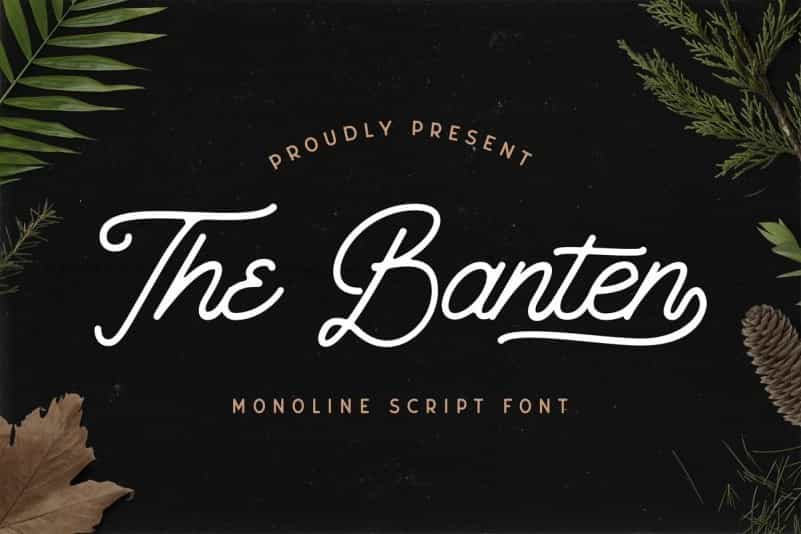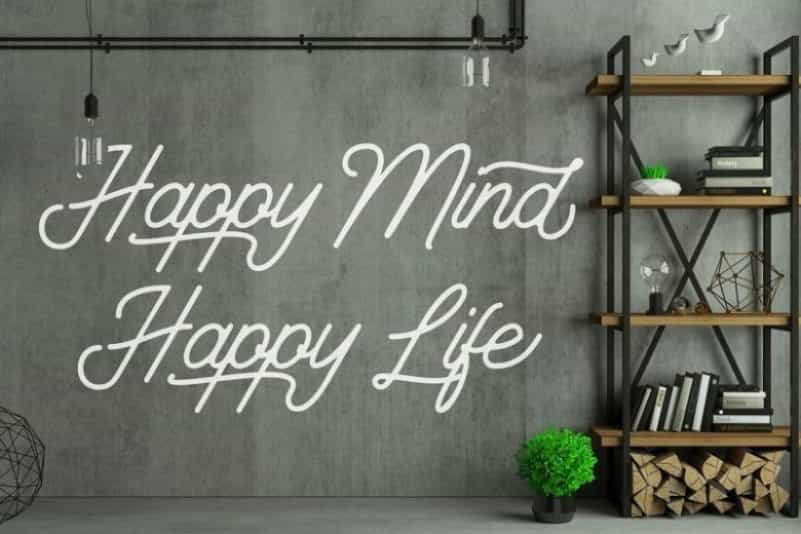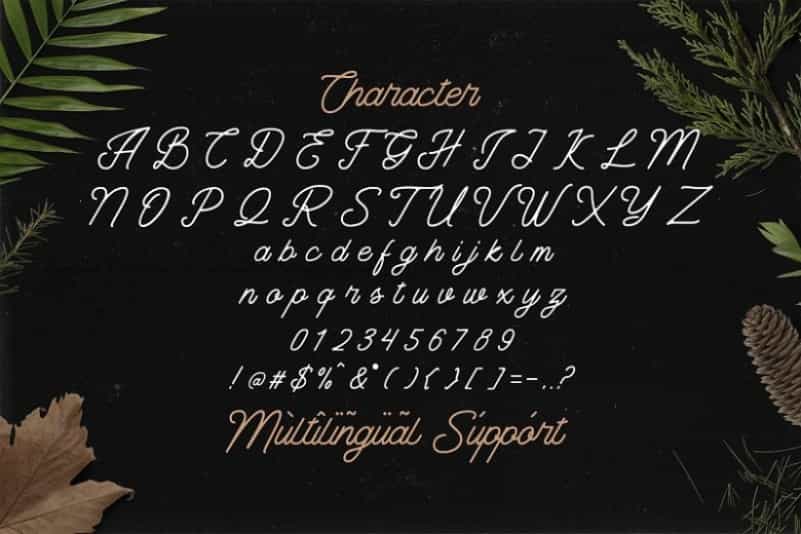
The Banten is a monoline script font with a Retro Vintage Style. This font is ideal for clothing, fashion brands shoes wedding invitations and business cards branding clothing, and even names for business brands such as barber shop or Taylor. The Font Template contains Classy, stylish, innovative and a distinctive concept.